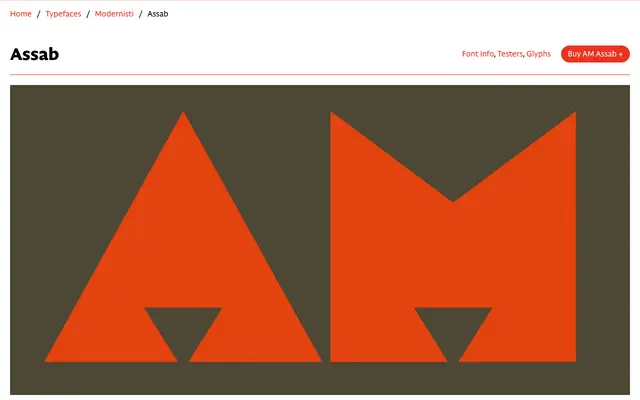
AM Assab
CAST · Alessandro Bombieri · 2024
A digital revival of a 1930s Italian wood type, reconstructed from the counterless geometric sans tradition that ran through Fascist-era advertising and into Milton Glaser's Baby Teeth.
Originally produced by Xilografia Ruggero Zuliani & C. in Verona in the early 1930s, Assab belongs to a strain of counterless sanserifs that shaped Italian advertising typography and found expression in Fortunato Depero's experimental lettering. Alessandro Bombieri's revival keeps close to the wooden source while rectifying rough edges and adding an alternate S to prevent the overlaps inherent in letter combinations such as ST and LS. A single Regular weight covers an extensive Latin character set spanning over seventy languages.
An all-caps, counterless geometric sans built from circles, triangles and rectangles, making it a display face in the constructivist/modernist tradition rather than a conventional text geometric sans.